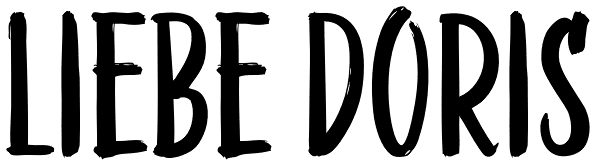
LiebeDoris
Inspired by a workshop with iconic American sign painter Mike Meyer, Ulrike of LiebeFonts set out to create a versatile, lovely typeface for sign painting that looks not at all like a font but rather like the letters on a unique, hand-painted...
Liebe Doris